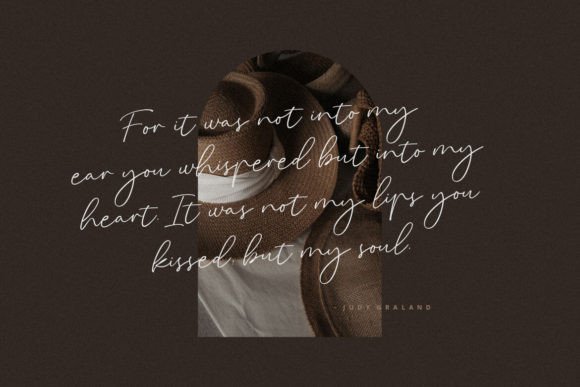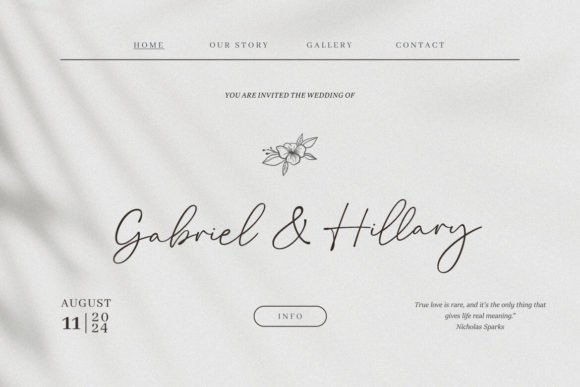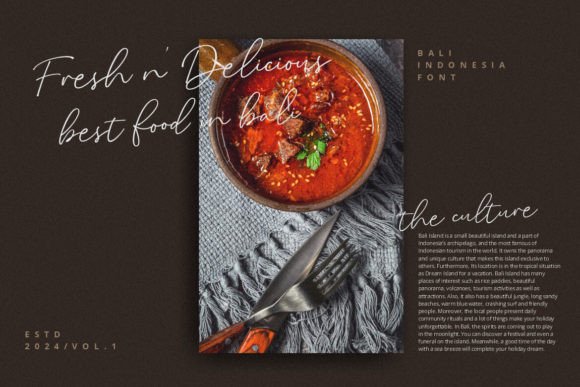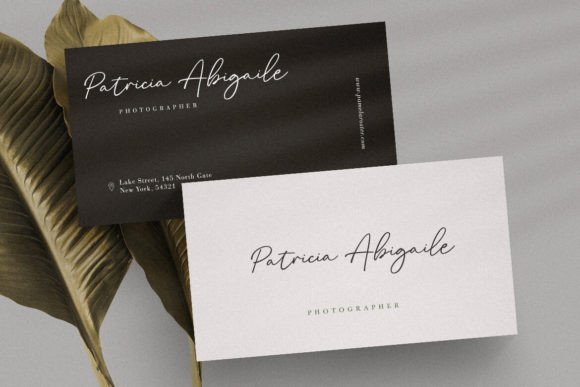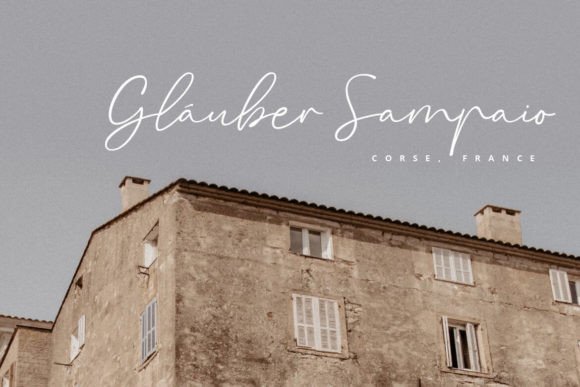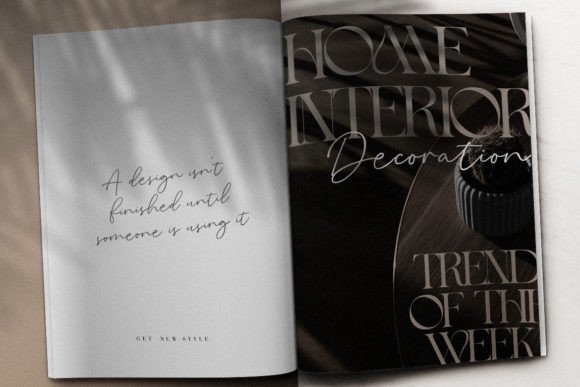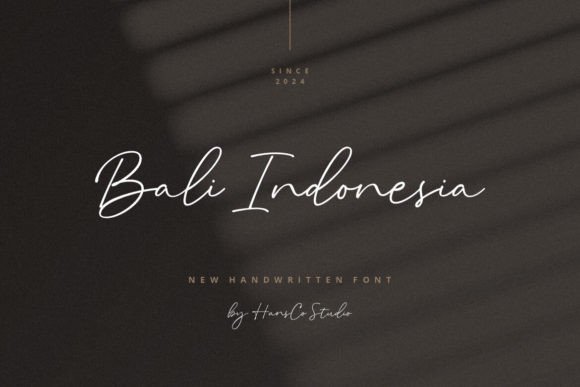
Bali Indonesia Font: Elevate Your Designs with Elegance
Are you a designer or crafter looking for a font that exudes elegance and sophistication? Look no further than the Bali Indonesia Font. This clean and modern handwriting font is carefully crafted with a touch of elegance, making it perfect for a wide range of creative projects.
What is Bali Indonesia Font?
Bali Indonesia Font is a beautifully designed handwriting font that is both clean and modern. Its elegant touch makes it an ideal choice for designers and crafters who want to add a touch of sophistication to their work. Whether you’re looking for fonts for Instagram or calligraphy scripts for DIY projects, this font is sure to impress.
Features of Bali Indonesia Font
- Clean and Modern Design: The Bali Indonesia Font boasts a clean and modern design that is perfect for creating visually appealing designs.
- Elegant Touch: The font’s elegant touch adds a level of sophistication to any design, making it perfect for high-end projects.
- Versatile: The Bali Indonesia Font is versatile and can be used for a wide range of projects, from print templates to digital designs.
- Easy to Read: The font is easy to read, making it perfect for body text and headings.
Uses of Bali Indonesia Font
The Bali Indonesia Font is perfect for a wide range of projects, including:
- Print Templates: Create stunning print templates like posters, branding, quotes, blog titles, fashion, invitations, greeting cards, business cards, clothing, and stationery.
- Digital Designs: Use the font to create digital designs like Instagram posts, social media graphics, and blog headers.
- DIY Projects: Add a touch of elegance to your DIY projects with the Bali Indonesia Font.
Benefits of Using Bali Indonesia Font
Using the Bali Indonesia Font offers several benefits, including:
- Unique Designs: The font helps you create unique and visually appealing designs that stand out from the crowd.
- Time-Saving: The font is easy to use and saves you time, allowing you to focus on other aspects of your project.
- Professional Look: The font gives your designs a professional look, making it perfect for high-end projects.
Tips for Using Bali Indonesia Font
Here are some tips for using the Bali Indonesia Font:
- Pair it with Other Fonts: Pair the Bali Indonesia Font with other fonts to create a unique and visually appealing design.
- Use it for Headings: Use the font for headings and titles to add a touch of elegance to your design.
| Font Name | Bali Indonesia Font |
| Author | HansCo |
In conclusion, the Bali Indonesia Font is a beautifully designed handwriting font that is perfect for designers and crafters looking for a touch of elegance in their work. Its clean and modern design, elegant touch, and versatility make it an ideal choice for a wide range of projects. With its ease of use and professional look, this font is sure to elevate your designs and take them to the next level.